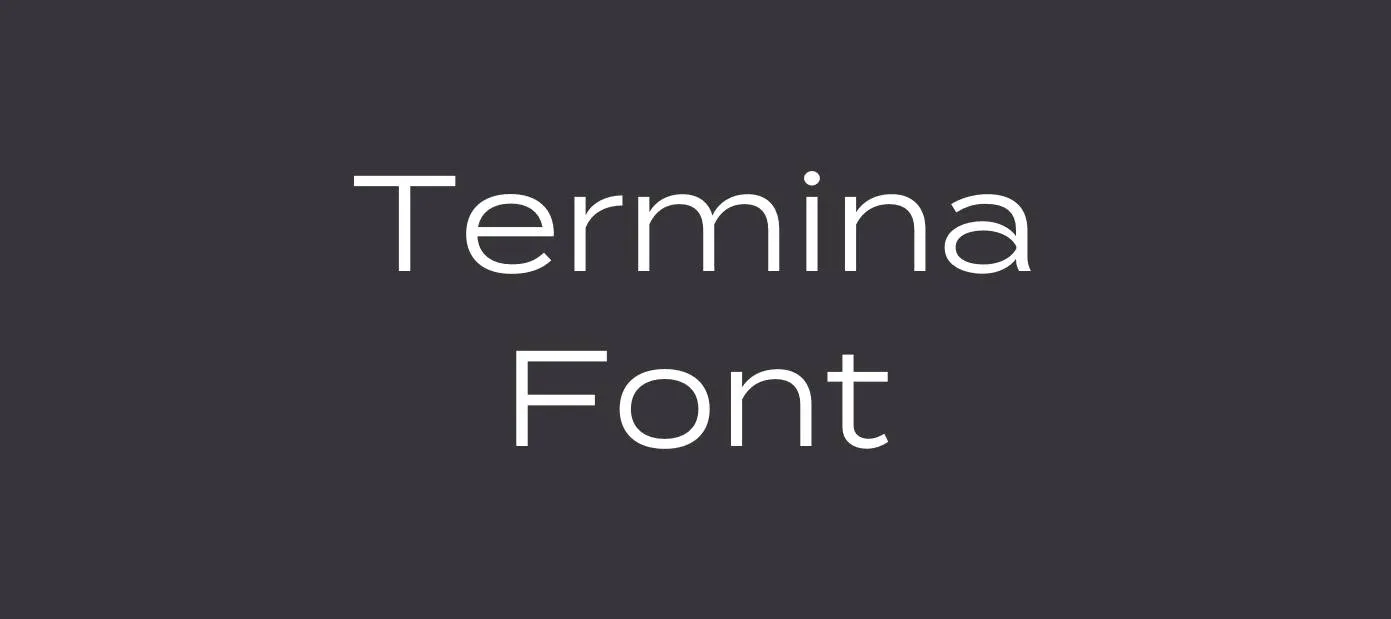
Termina Black Font . Amongst the landscape of geometrics, termina breaks the norm with its generously wide letterforms. 6,993 downloads free for personal use. A sans serif typeface with 9 styles, available from adobe fonts for sync and web. Explore termina designed by mattox shuler at adobe fonts. Termina w05 black font is a basic, sans serif type font that can be used on any device such as pc, mac, linux,. In the heart of the digital design world, lies the powerful and refined typeface, termina font. Termina w05 black font download is available free from 8font.com. Termina sans serif font is a powerful and bold sans, perfect for web headings and logos. The various uses can range from advertising to logotype—from small. It’s designed and shared by fort foundry.
6,993 downloads free for personal use. In the heart of the digital design world, lies the powerful and refined typeface, termina font. Termina w05 black font download is available free from 8font.com. A sans serif typeface with 9 styles, available from adobe fonts for sync and web. Termina w05 black font is a basic, sans serif type font that can be used on any device such as pc, mac, linux,. Amongst the landscape of geometrics, termina breaks the norm with its generously wide letterforms. The various uses can range from advertising to logotype—from small. It’s designed and shared by fort foundry. Explore termina designed by mattox shuler at adobe fonts. Termina sans serif font is a powerful and bold sans, perfect for web headings and logos.
Termina Black Font Termina w05 black font download is available free from 8font.com. Termina sans serif font is a powerful and bold sans, perfect for web headings and logos. A sans serif typeface with 9 styles, available from adobe fonts for sync and web. Amongst the landscape of geometrics, termina breaks the norm with its generously wide letterforms. Termina w05 black font download is available free from 8font.com. Termina w05 black font is a basic, sans serif type font that can be used on any device such as pc, mac, linux,. In the heart of the digital design world, lies the powerful and refined typeface, termina font. It’s designed and shared by fort foundry. The various uses can range from advertising to logotype—from small. 6,993 downloads free for personal use. Explore termina designed by mattox shuler at adobe fonts.
Termina Font Free Download Termina Black Font 6,993 downloads free for personal use. Amongst the landscape of geometrics, termina breaks the norm with its generously wide letterforms. Termina sans serif font is a powerful and bold sans, perfect for web headings and logos. In the heart of the digital design world, lies the powerful and refined typeface, termina font. Termina w05 black font download is available free. Termina Black Font.
Termina Black Font Free at Rhonda Gil blog Termina Black Font Termina w05 black font download is available free from 8font.com. The various uses can range from advertising to logotype—from small. In the heart of the digital design world, lies the powerful and refined typeface, termina font. Explore termina designed by mattox shuler at adobe fonts. Termina sans serif font is a powerful and bold sans, perfect for web headings and. Termina Black Font.
termina font free download japanesestylepokemontattoo Termina Black Font Termina sans serif font is a powerful and bold sans, perfect for web headings and logos. The various uses can range from advertising to logotype—from small. Termina w05 black font download is available free from 8font.com. It’s designed and shared by fort foundry. Amongst the landscape of geometrics, termina breaks the norm with its generously wide letterforms. A sans serif. Termina Black Font.
Termina Font Free Download Free Fonts World Termina Black Font A sans serif typeface with 9 styles, available from adobe fonts for sync and web. Explore termina designed by mattox shuler at adobe fonts. The various uses can range from advertising to logotype—from small. Amongst the landscape of geometrics, termina breaks the norm with its generously wide letterforms. Termina sans serif font is a powerful and bold sans, perfect for. Termina Black Font.
Termina Font Free Download Termina Black Font 6,993 downloads free for personal use. A sans serif typeface with 9 styles, available from adobe fonts for sync and web. It’s designed and shared by fort foundry. In the heart of the digital design world, lies the powerful and refined typeface, termina font. Termina w05 black font download is available free from 8font.com. The various uses can range from. Termina Black Font.
Termina W05 Black 1.00 Fonts Free Download Termina Black Font Termina sans serif font is a powerful and bold sans, perfect for web headings and logos. Termina w05 black font download is available free from 8font.com. In the heart of the digital design world, lies the powerful and refined typeface, termina font. A sans serif typeface with 9 styles, available from adobe fonts for sync and web. Amongst the landscape. Termina Black Font.
Download free Termina font, free Termina.ttf Regular font for Windows Termina Black Font Amongst the landscape of geometrics, termina breaks the norm with its generously wide letterforms. 6,993 downloads free for personal use. Termina w05 black font is a basic, sans serif type font that can be used on any device such as pc, mac, linux,. Explore termina designed by mattox shuler at adobe fonts. It’s designed and shared by fort foundry. In. Termina Black Font.
Termina Font Free Download Termina Black Font It’s designed and shared by fort foundry. A sans serif typeface with 9 styles, available from adobe fonts for sync and web. 6,993 downloads free for personal use. Explore termina designed by mattox shuler at adobe fonts. Termina sans serif font is a powerful and bold sans, perfect for web headings and logos. Termina w05 black font download is available. Termina Black Font.
a white background with black text that reads,'termina is a bold modern Termina Black Font A sans serif typeface with 9 styles, available from adobe fonts for sync and web. 6,993 downloads free for personal use. Explore termina designed by mattox shuler at adobe fonts. It’s designed and shared by fort foundry. In the heart of the digital design world, lies the powerful and refined typeface, termina font. The various uses can range from advertising. Termina Black Font.